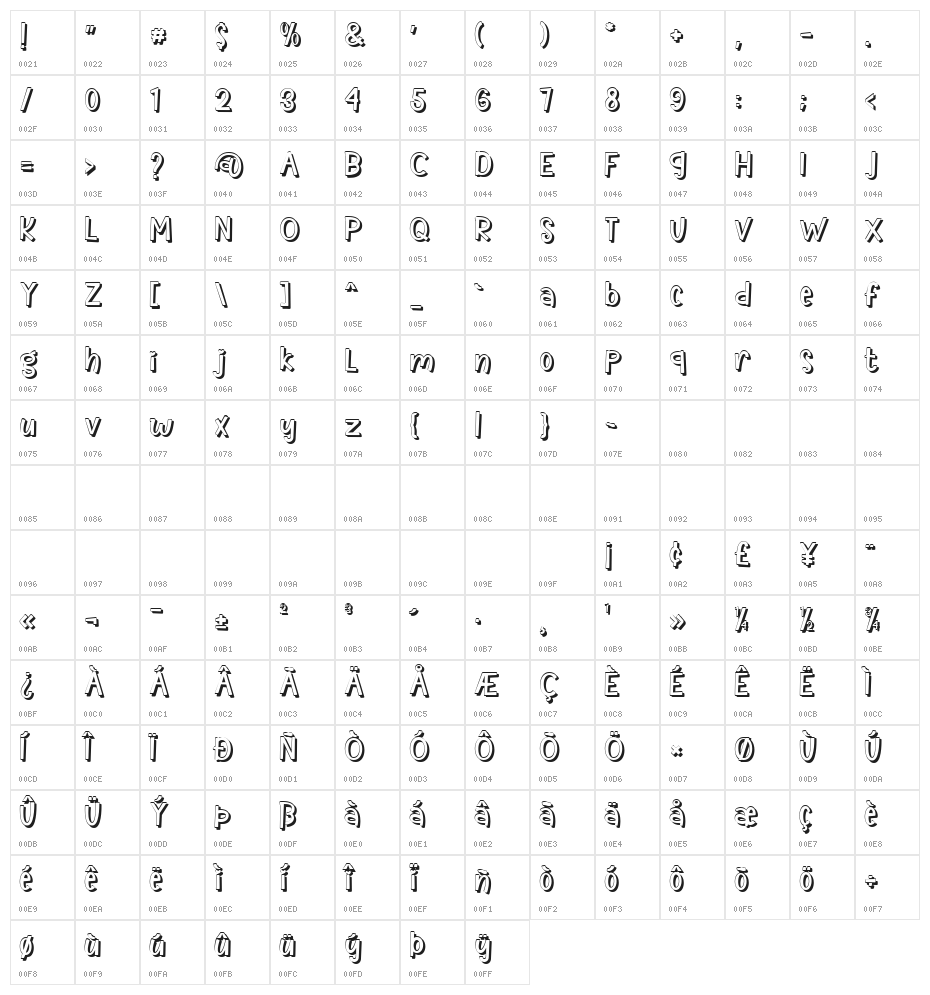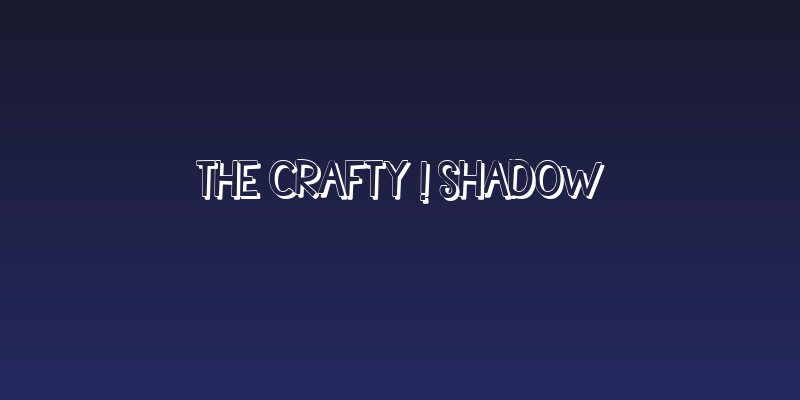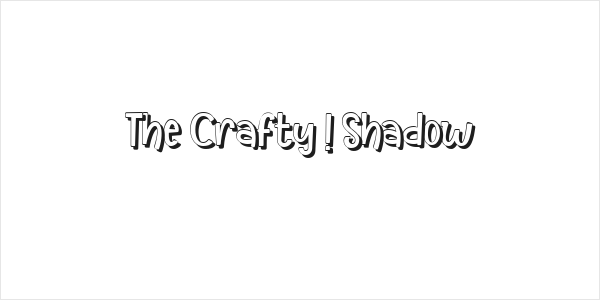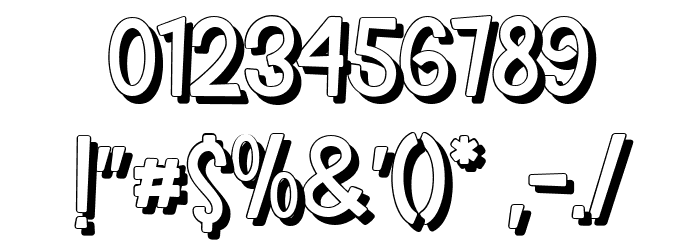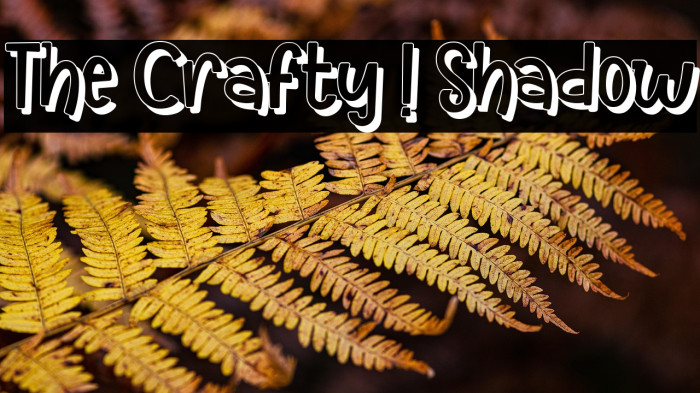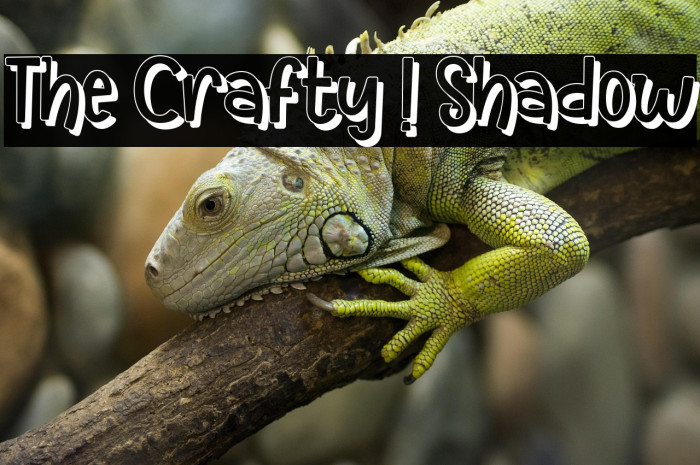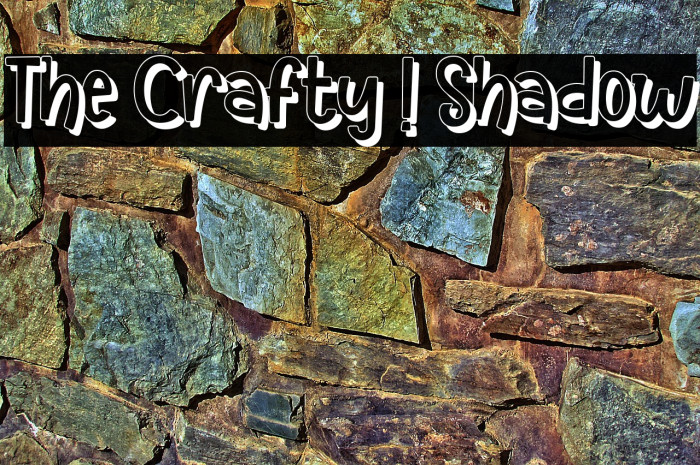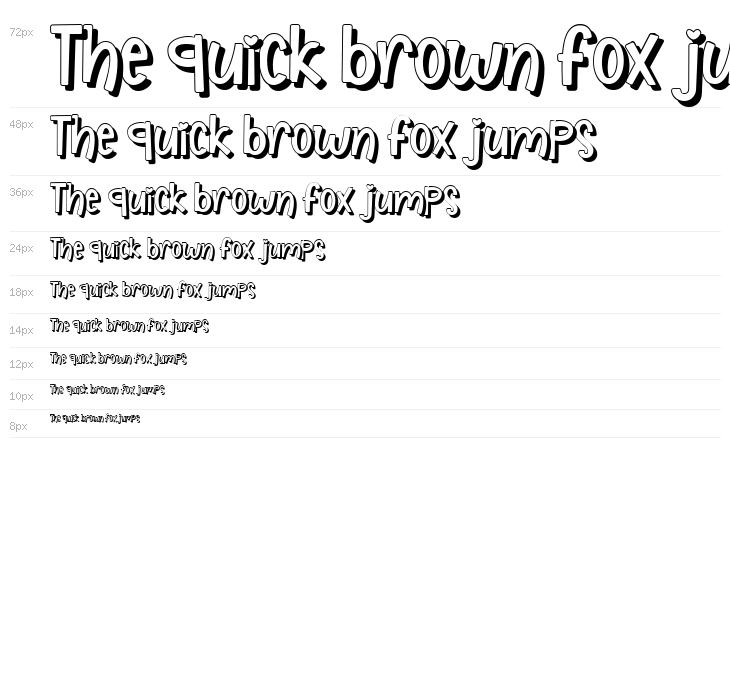
The Crafty ! Shadow Font
The Crafty ! Shadow Description
This playful and bold font features a distinctive shadow effect that gives it a three-dimensional appearance. The letters are crafted with a thick outline and a playful, cartoonish style that adds a sense of fun and whimsy. The uppercase and lowercase characters maintain a consistent style, with rounded edges and a slightly irregular form that enhances its hand-drawn aesthetic. The numerals and special characters are designed to match the playful theme, making this font ideal for creative projects. The shadow effect adds depth, making the text stand out on various backgrounds.
| Overall Style | Playful, Cartoonish, Fun |
| Proposed Projects | Ideal for children's books, comic strips, playful branding, and creative posters. |